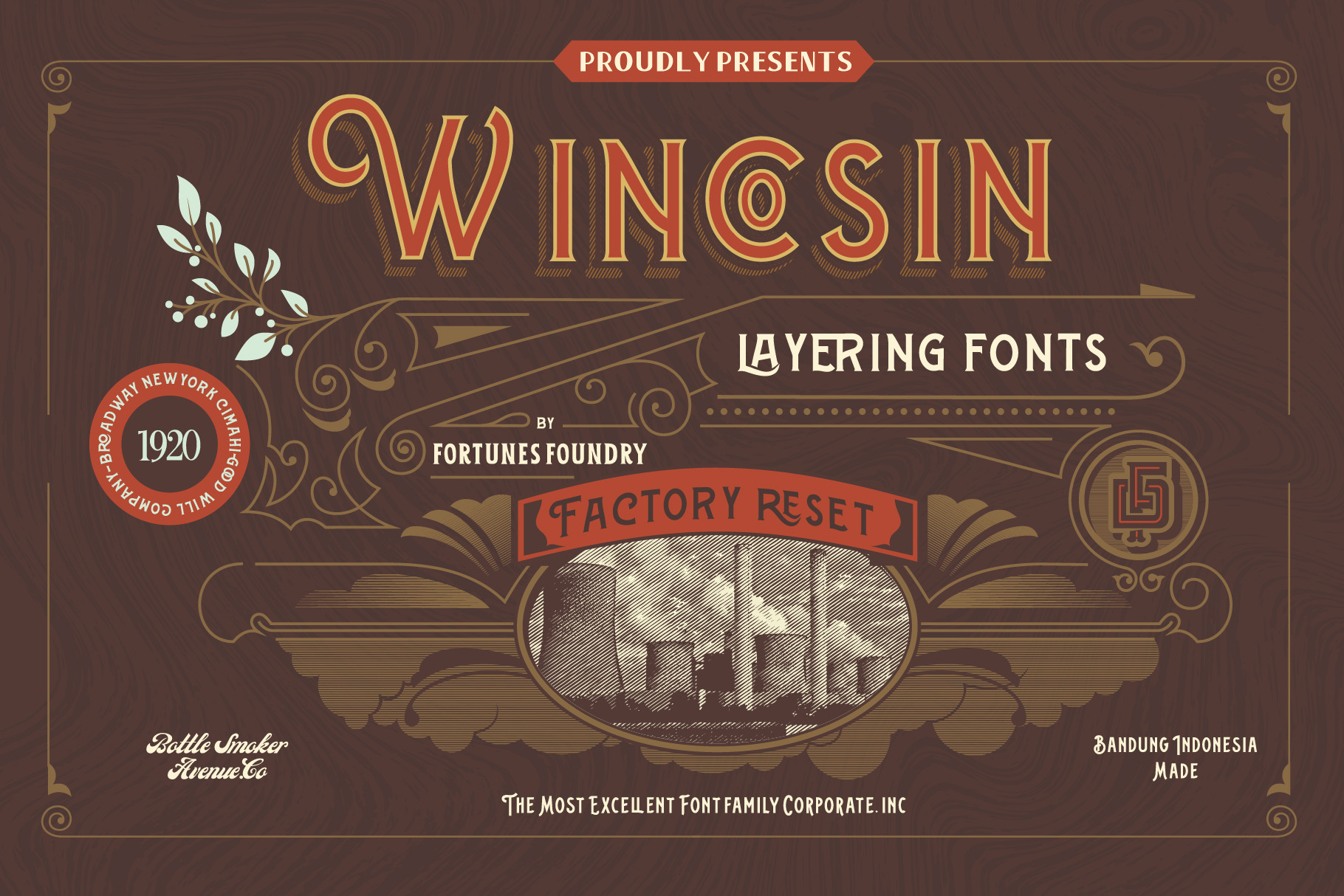
Wincosin Vintage & Package Fonts
Winston Vintage is vintage layering typeface based from vintage era, suitable for vintage, classic labeling signage, support multiple foreign language (refer on display preview no 2 to see all glyphs), Get Carlsons fonts type & extras, just to completed classic theme. with original vector preview you will get offering 14 days off - After that will back to 8 fonts Wincosing only
- Wincosin Regular
- Wincosin Hacth solid
- Wincosin Outline
- Wincosin Hacth
- Holden
- Colonial Regular
- Wincosans